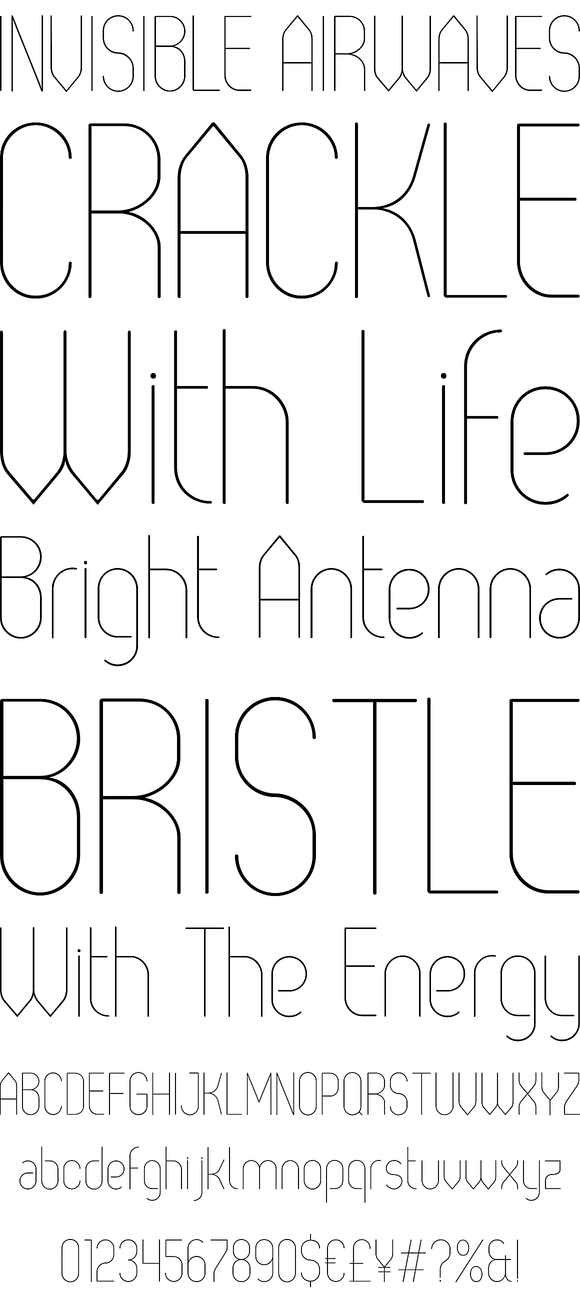
Oval was born out of an experiment with simple geometric forms. The font family includes many weights in Open type format with support for Latin1 language group.
Foundry: Fontfabric
Oval was born out of an experiment with simple geometric forms. The font family includes many weights in Open type format with support for Latin1 language group. Oval is a typical mono-line font, but in Double and Deco weights we see two lines interlaced into each other. While the font was designed with titles, subtitles, flyers and posters in mind, it can be used effectively for manuals, short to mid-length texts in small as well.